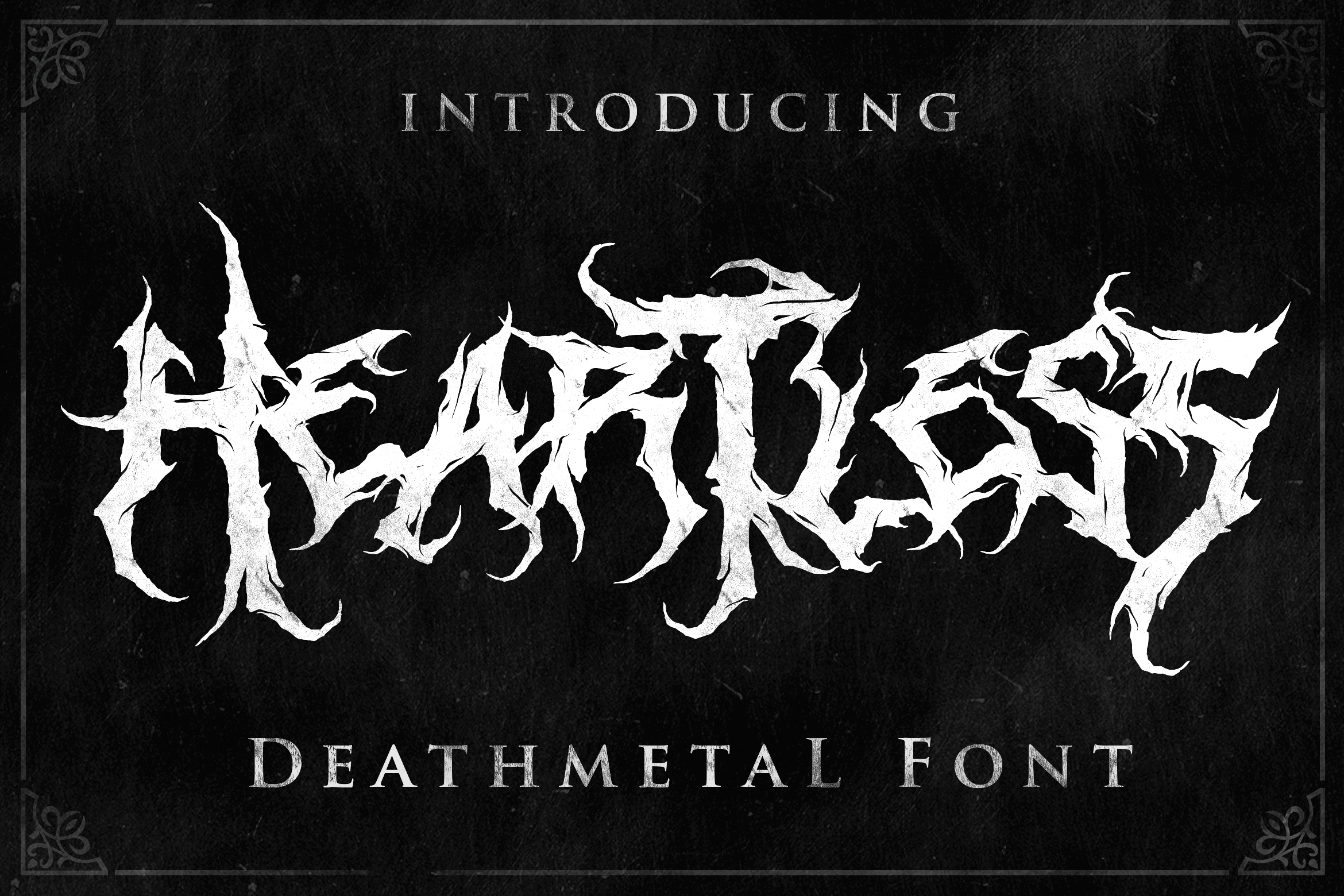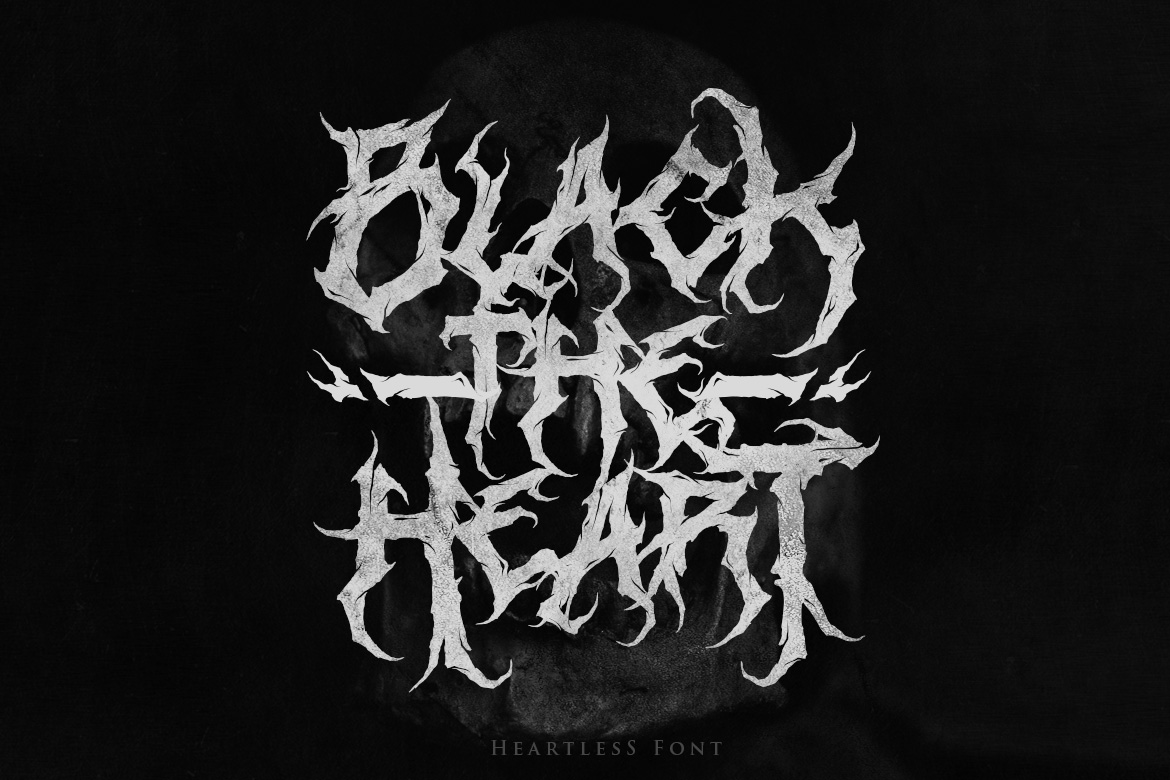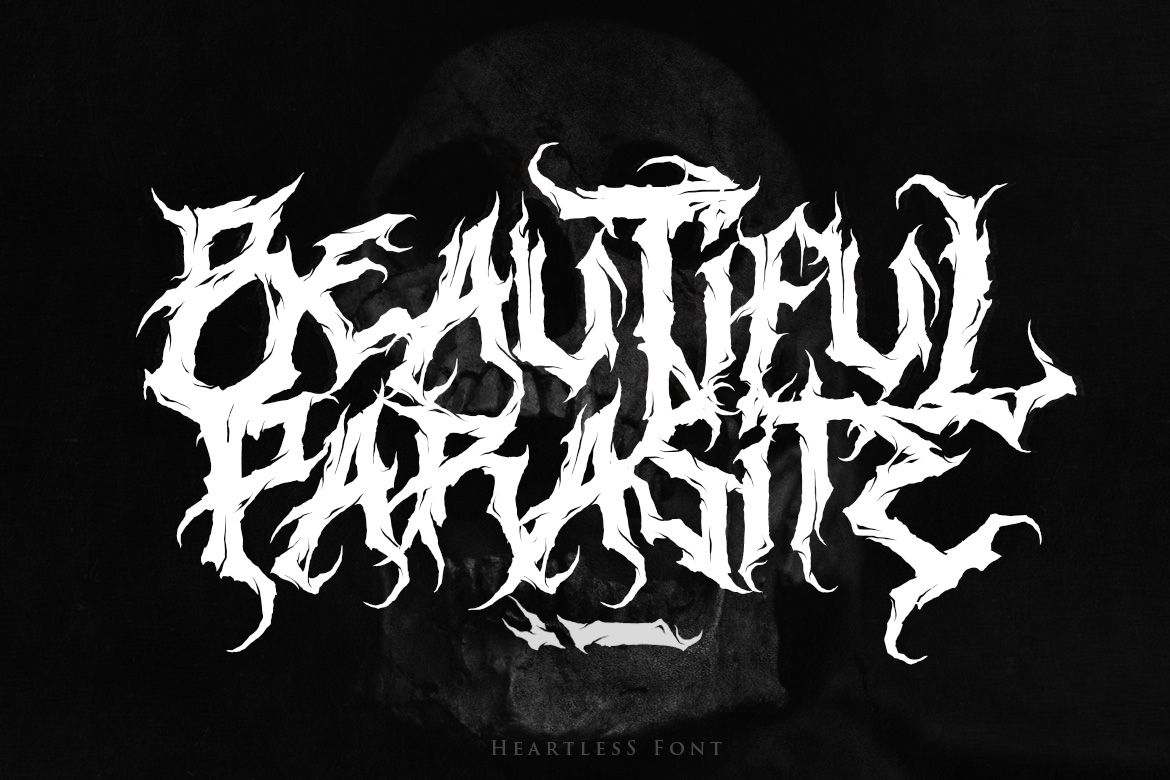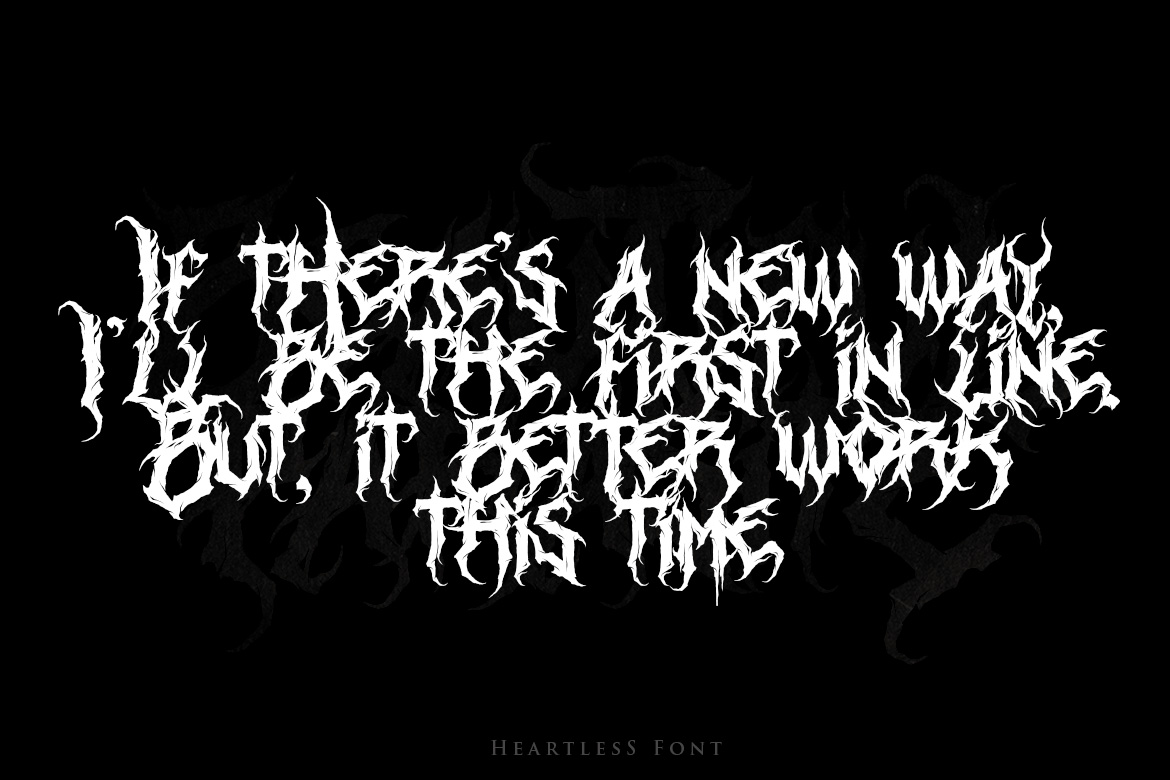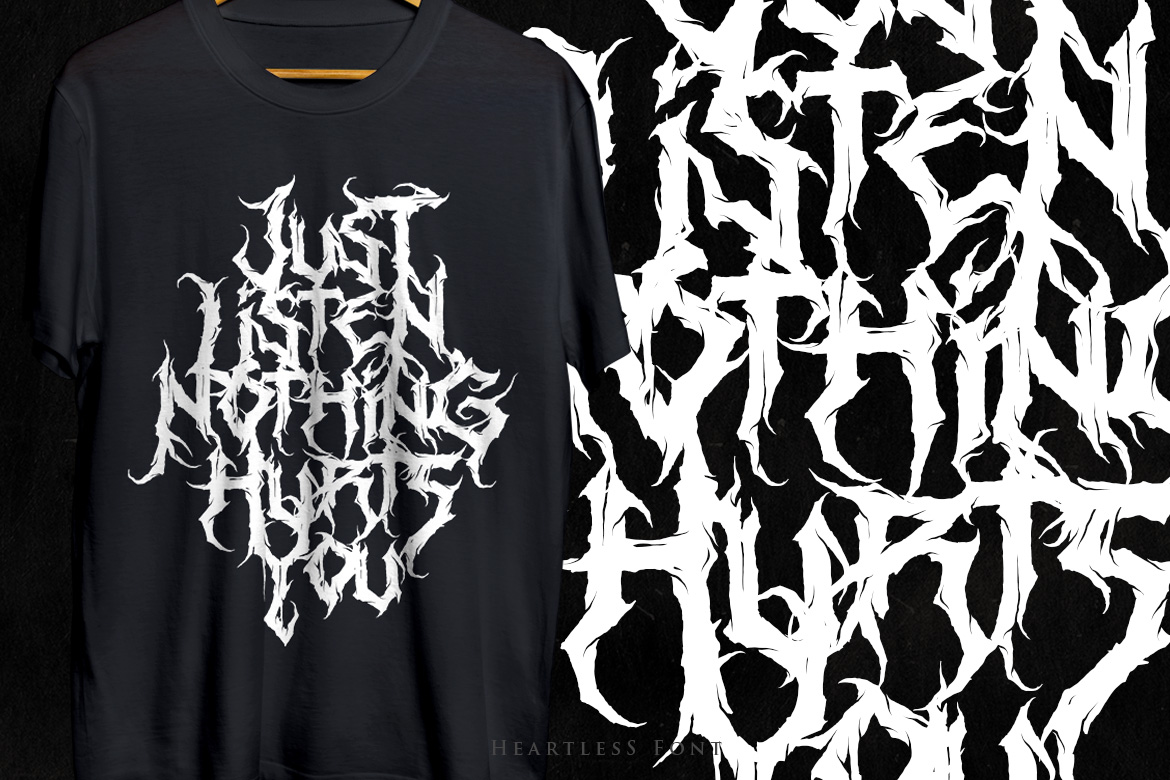
Heartless
Heartless is a legendary black metal font that has taken the underground and extreme metal scenes by storm. Recognized as one of the best-selling metal fonts in the world, it has been embraced by metal bands, clothing brands, and extreme music enthusiasts worldwide.
Designed with an intense black metal aesthetic, Heartless features brutal yet highly readable letterforms, making it perfect for band logos, album covers, merchandise, and extreme branding. Each letter is crafted with jagged, chaotic strokes that capture the raw, untamed spirit of death metal, black metal, and extreme music subcultures.
Whether you’re designing a merch drop, a festival poster, or a brutal album cover, Heartless delivers the perfect balance of aggression and legibility. Its unique, handcrafted structure ensures your design stands out with an authentic, unrelenting metal vibe.
🔥 Key Features:
✔ Highly readable yet dripping with black metal essence
✔ Unique, handcrafted strokes that embody extreme metal culture
✔ Perfect for band logos, album art, and merchandise
✔ A best-selling choice for clothing brands and metal music projects
Unleash the power of Heartless and bring your vision to life with unforgiving black metal aesthetics